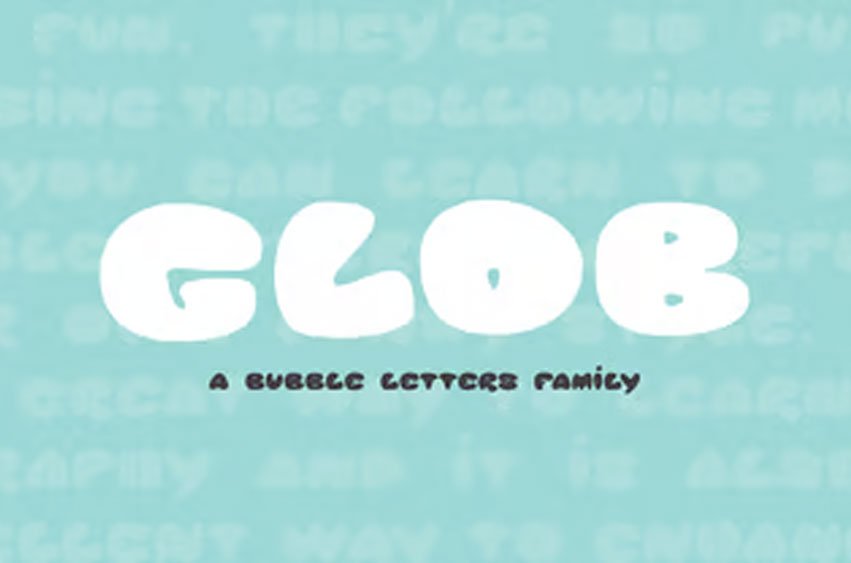
Glob Font is a multilanguage bubble-letter font. Includes Italic, outline & a rough version.
It fits in headlines, logos, posters, flyers, invitations, name cards, branding materials, print media, editorial layouts, and many more.